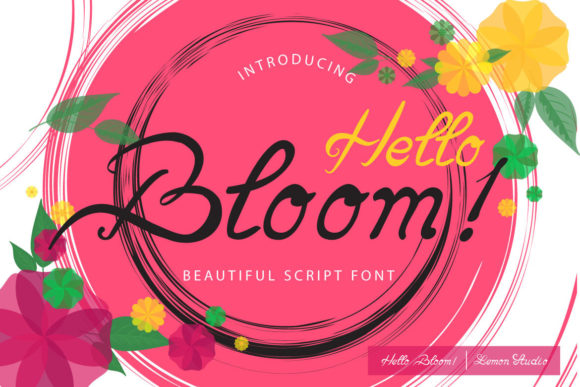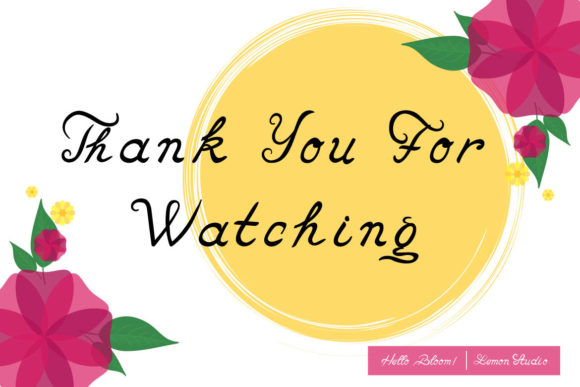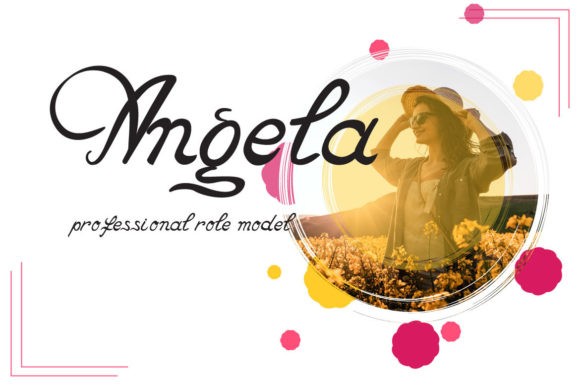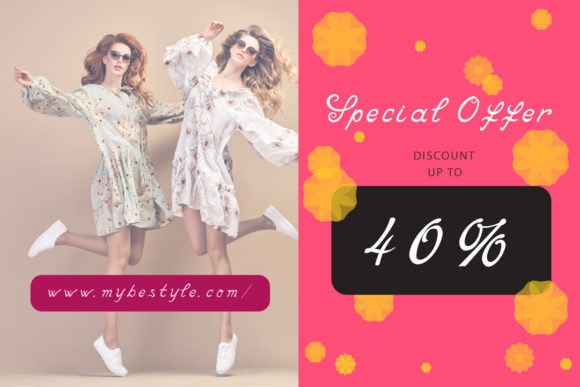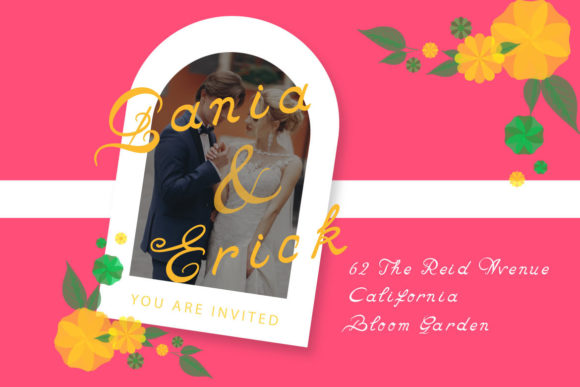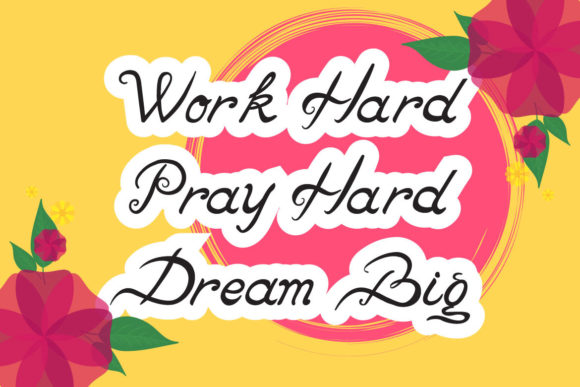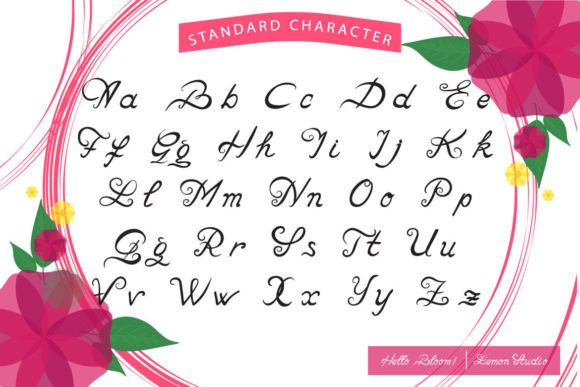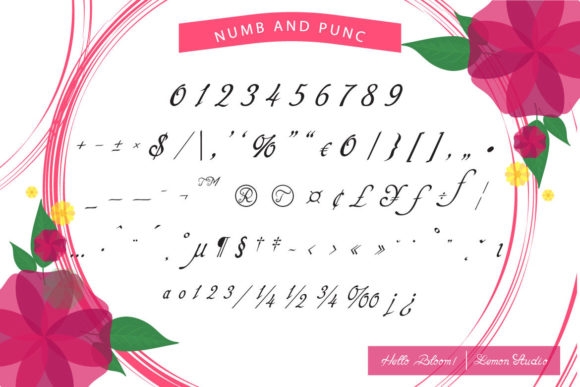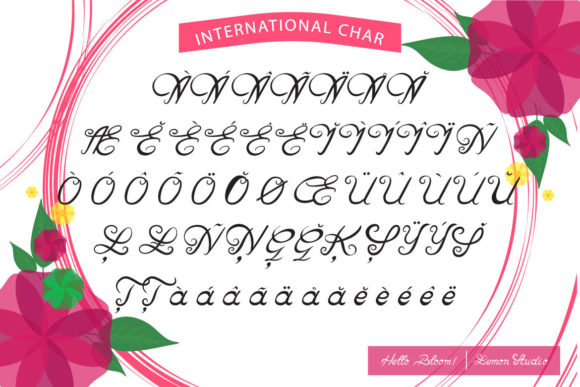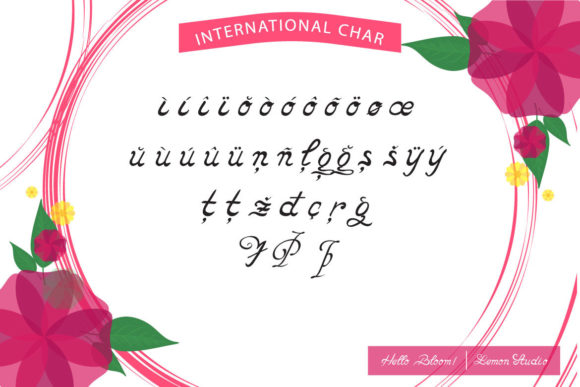
Hello Bloom Font
About Hello Bloom Font
Hello Bloom is a fresh & modern handwritten font with unique characters. It looks wonderful on invitations, greeting cards, branding material, business cards, quotes, posters, covers, headings, and more.